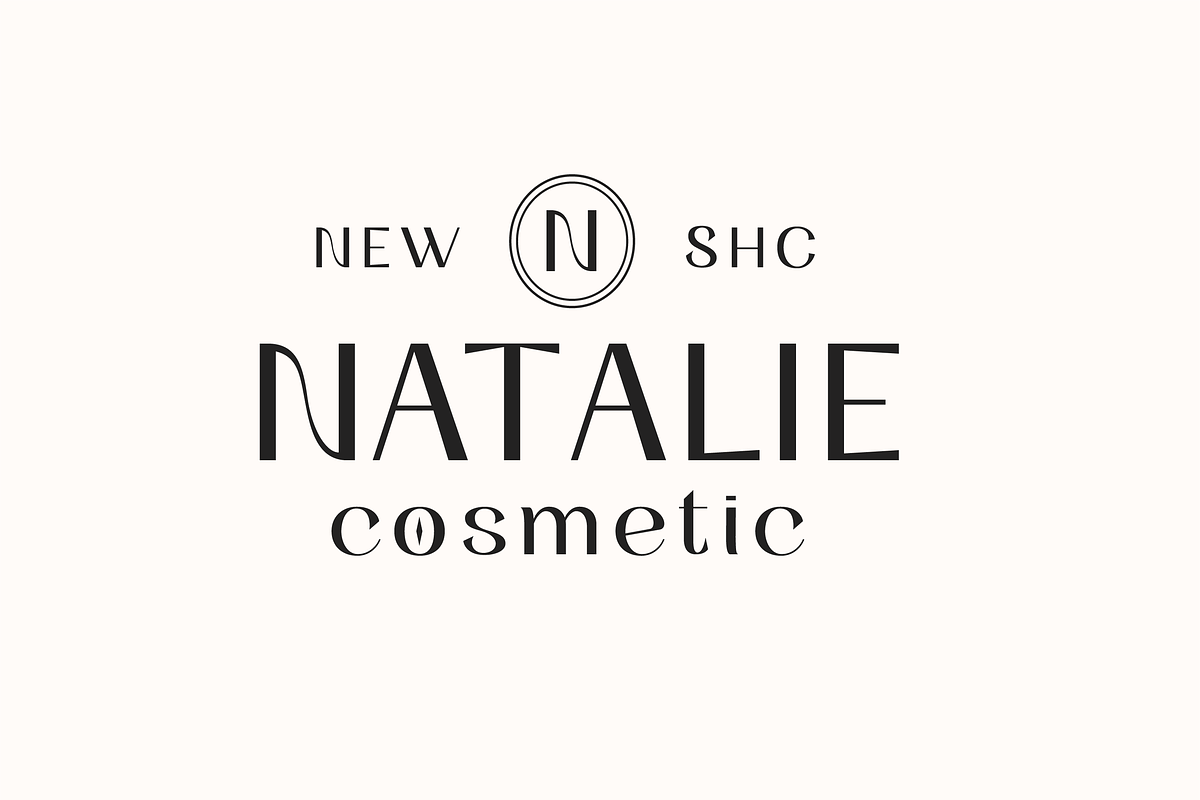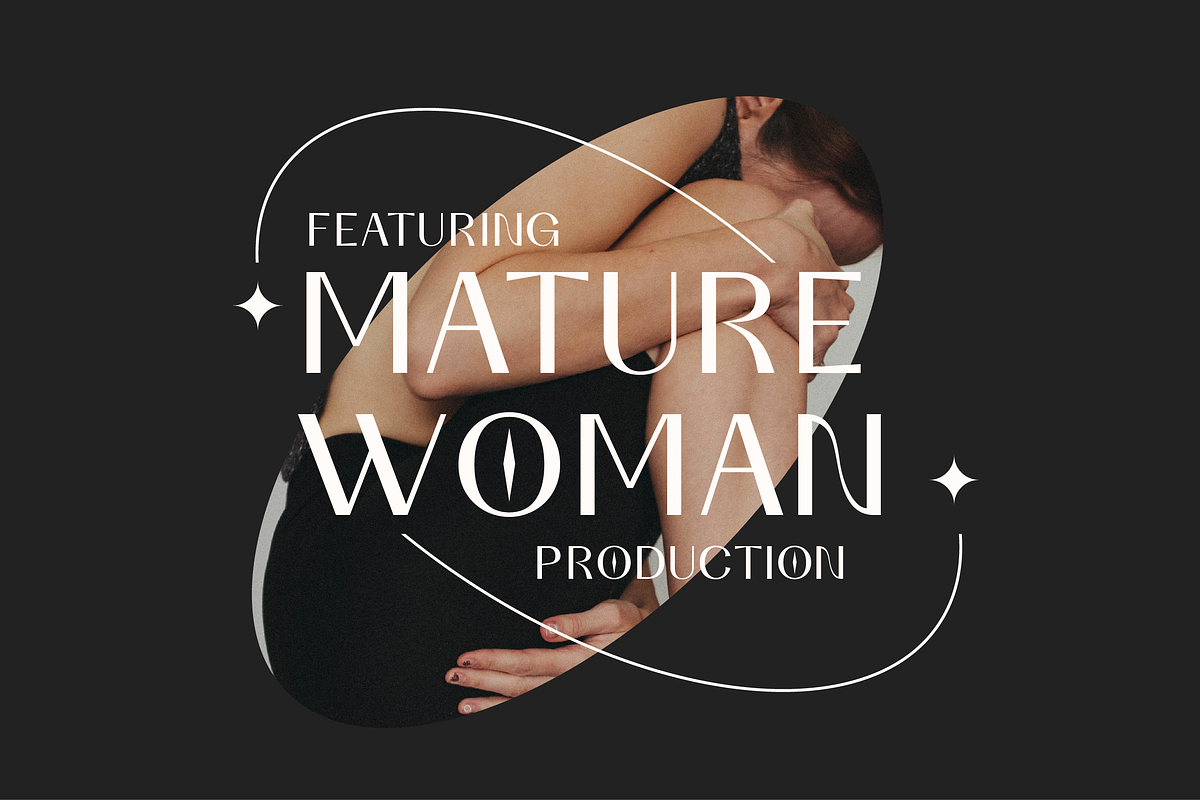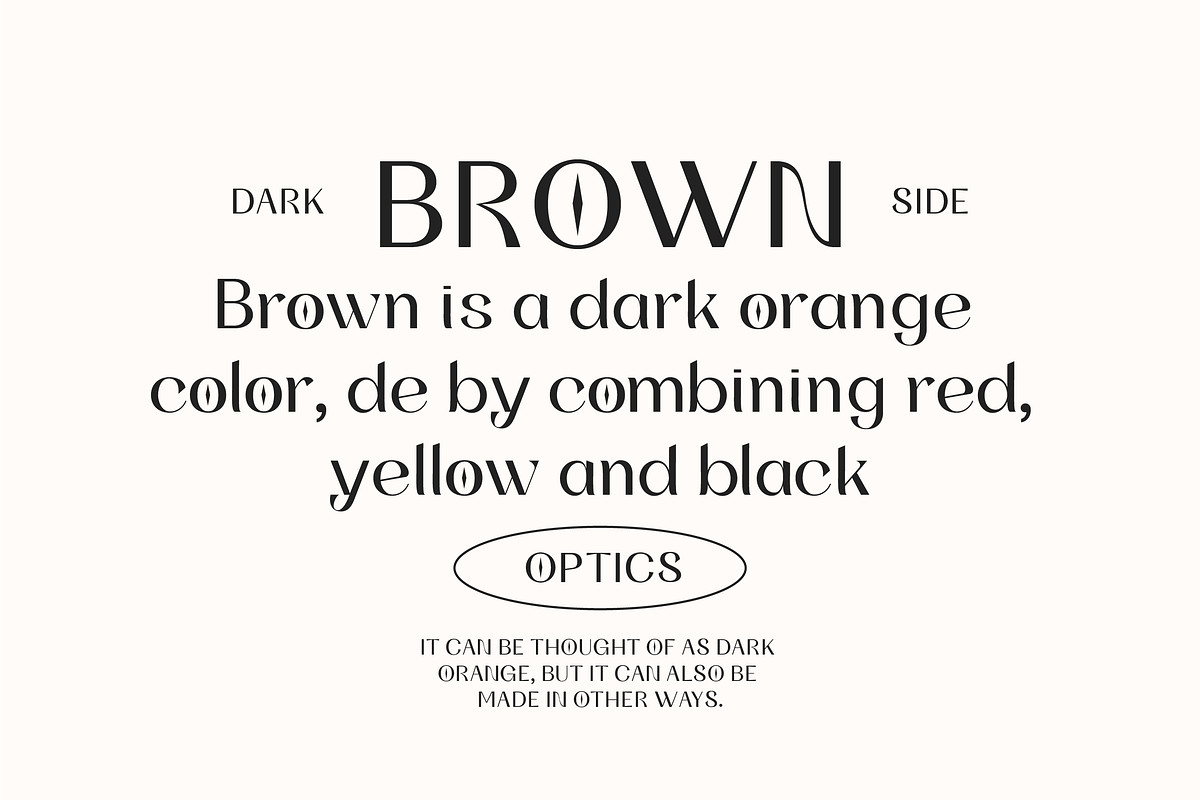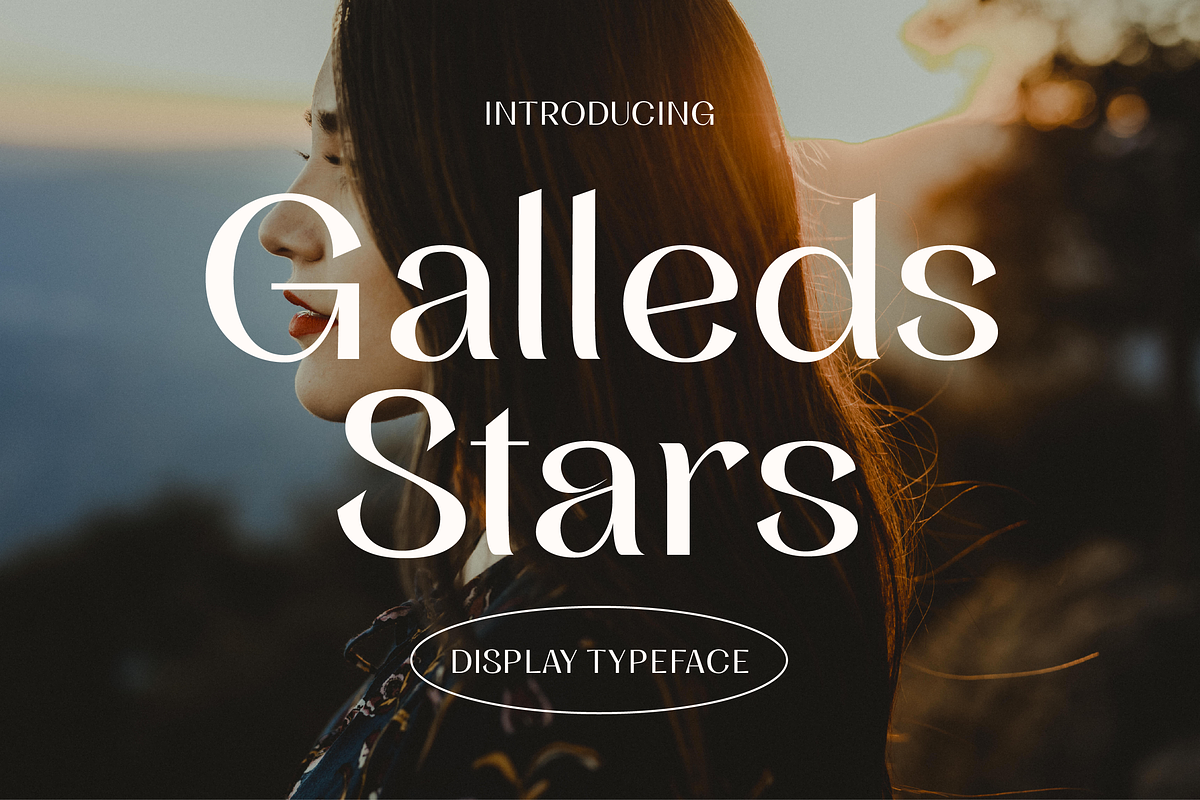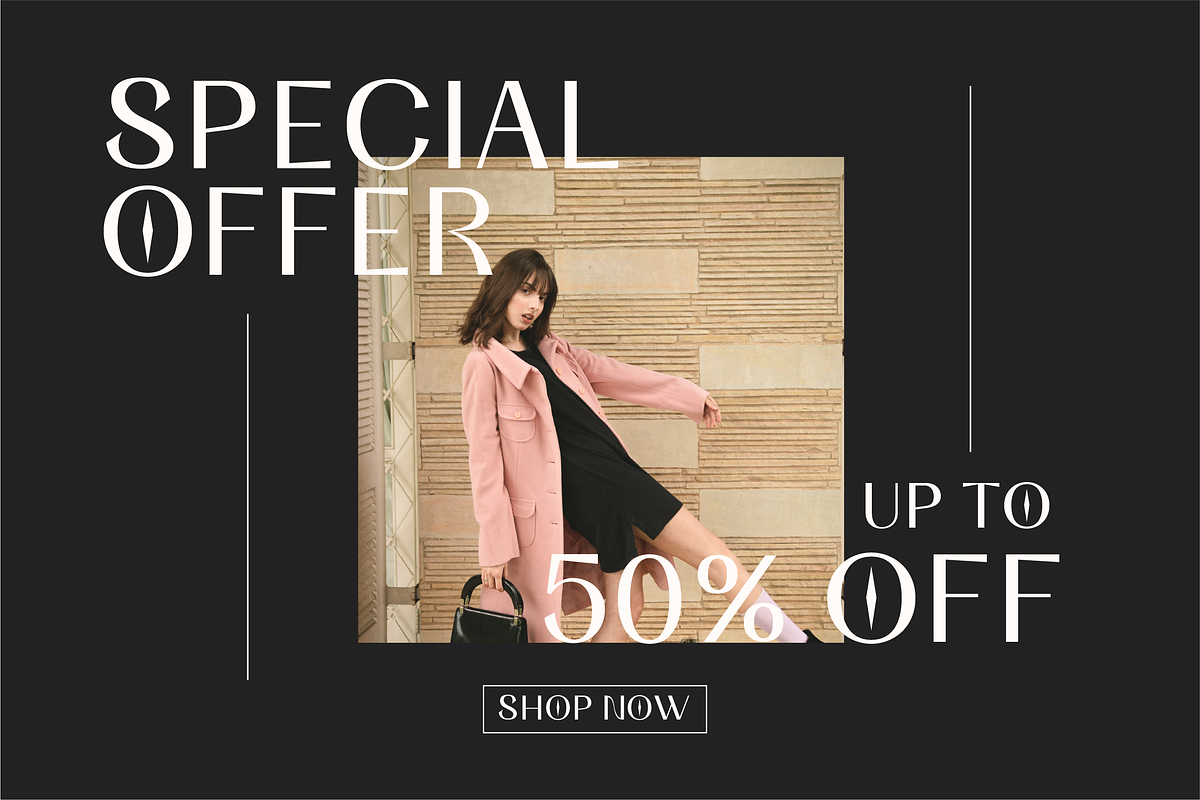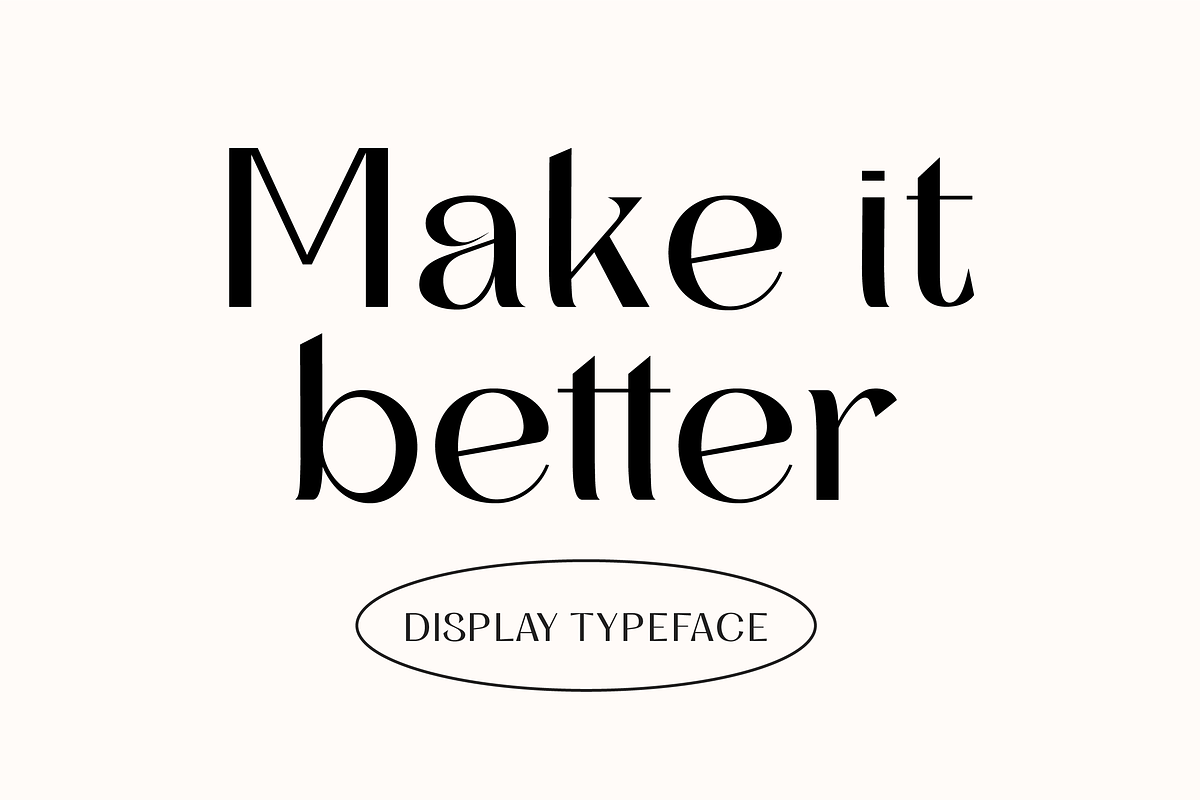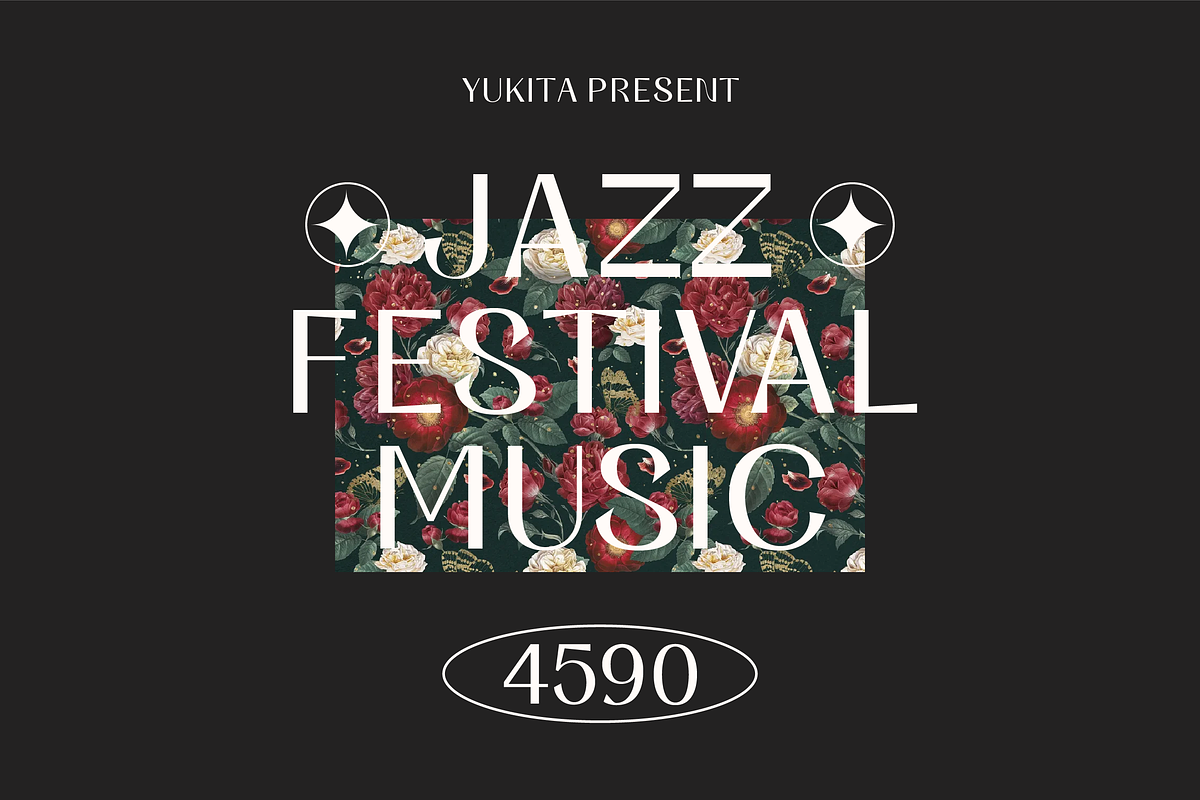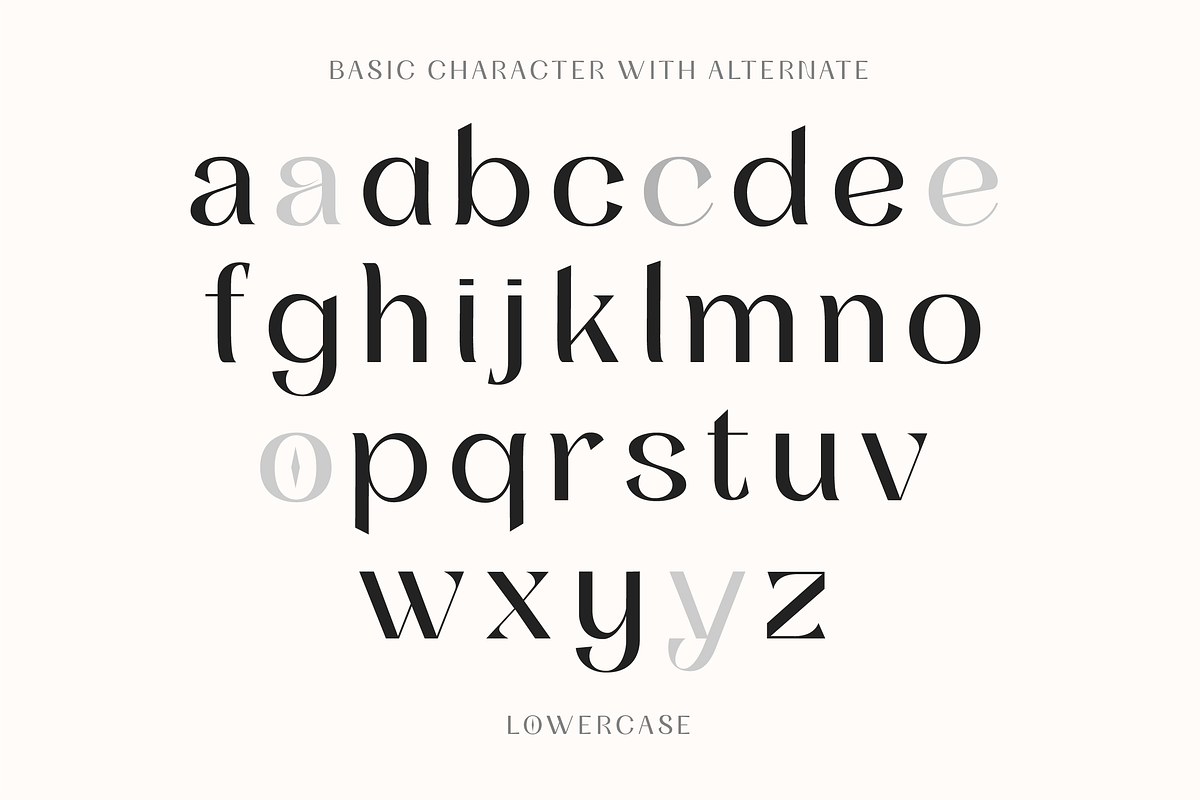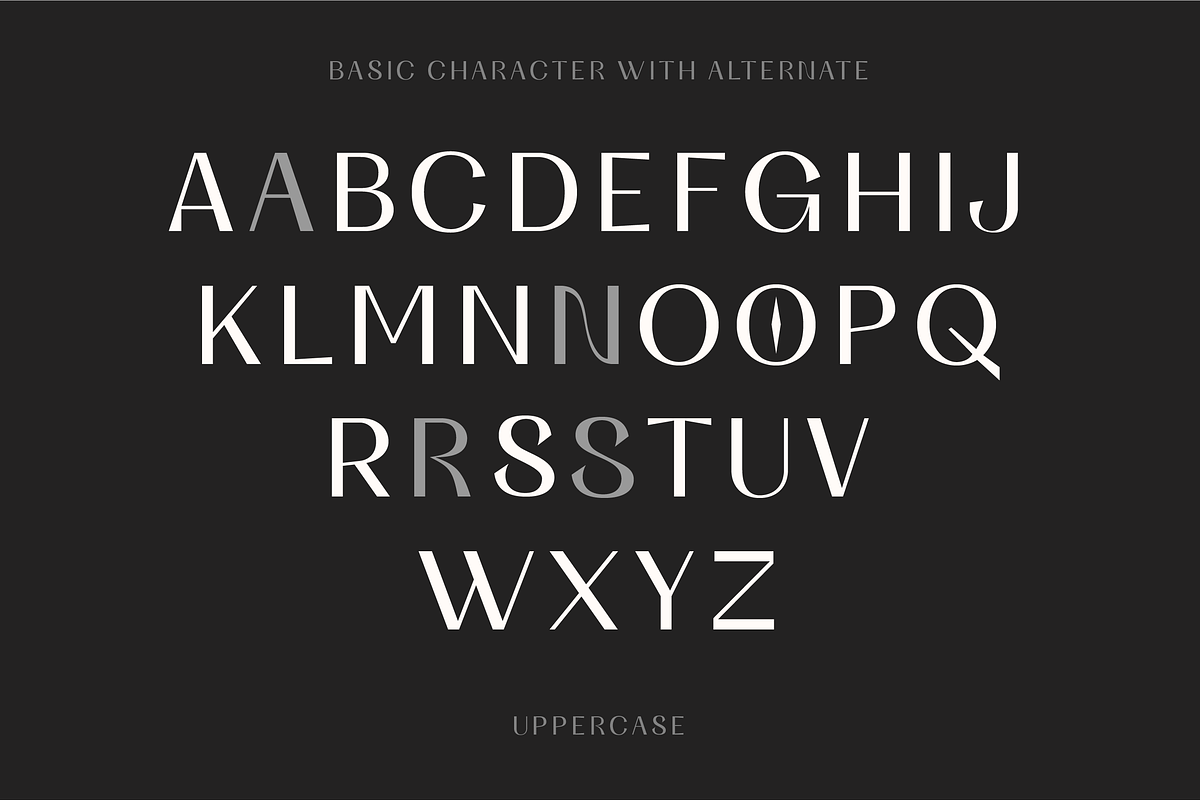
Galleds Stars Display Typeface
Galleds Stars Display Typeface is a single font with a minimalistic but standout style for any work from movie titles, music album covers, magazines, beauty ads, and even wedding invitations.
Minimalist type design that has been a success for professional designers all over the world.
• Galleds Stars Display Typeface is legible from much larger distances than typical fonts • Elegant letterforms give the feeling of luxury • Smooth curves for elegant typography
Tips for using fonts in projects. Use this font with a simple background, not too busy so that you can highlight your branding